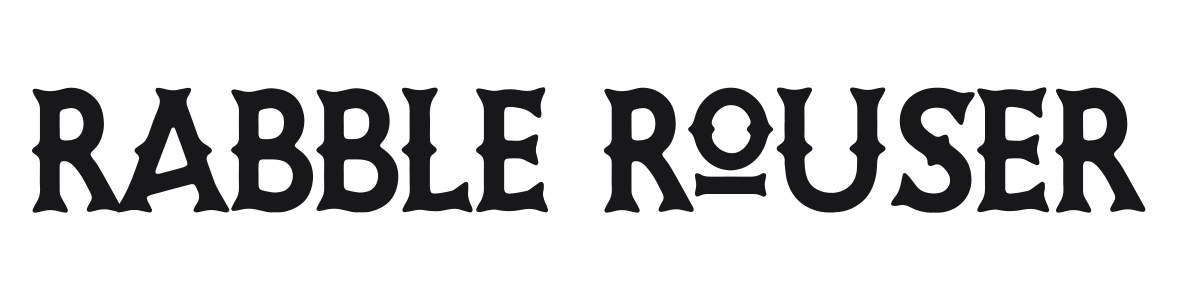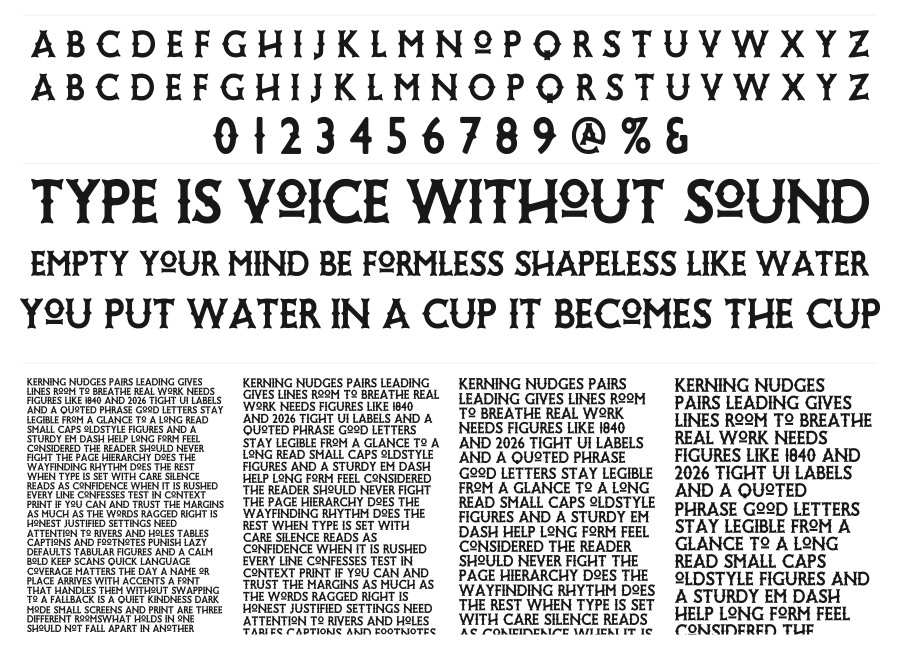
Rabble Rouser
Rabble Rouser is a bold display serif inspired by the lettering stitched onto the rockers of biker jackets. The characters carry thick, slightly irregular serifs and notched terminals that give the whole font a hand-crafted, worn-in feel without tipping into full distress. It brings that old-school outlaw energy to posters, apparel, and logos.